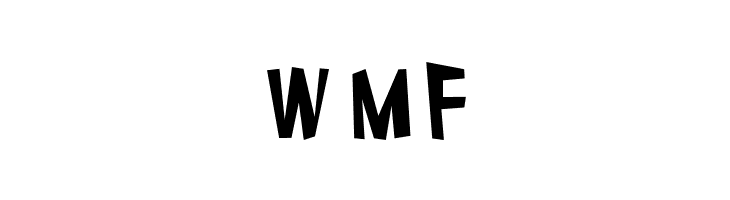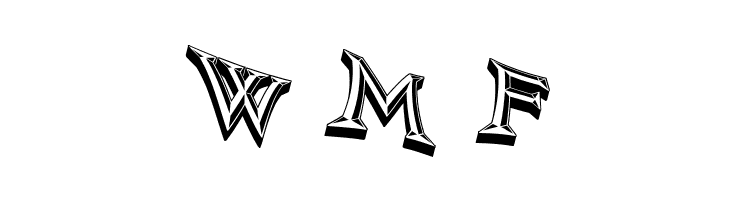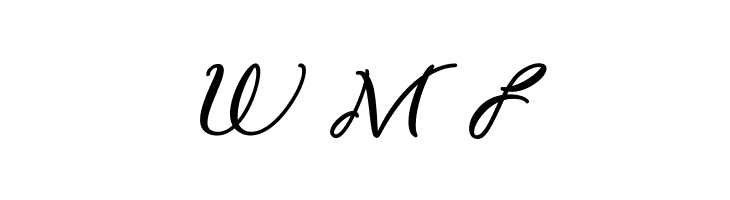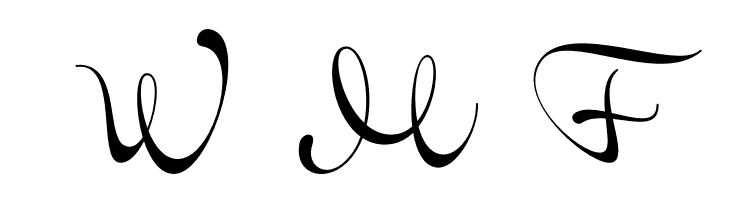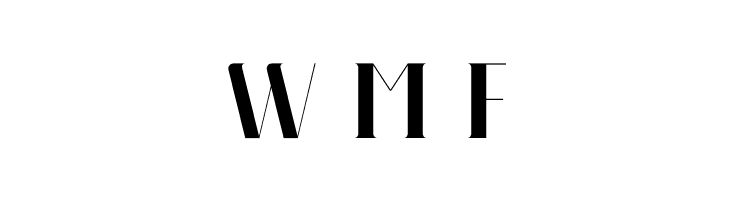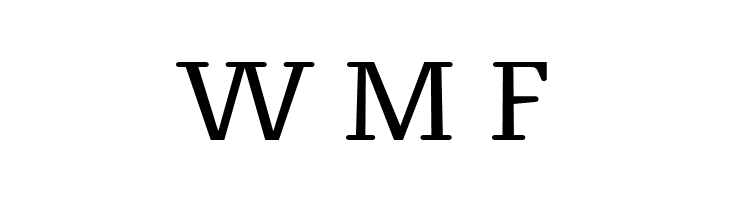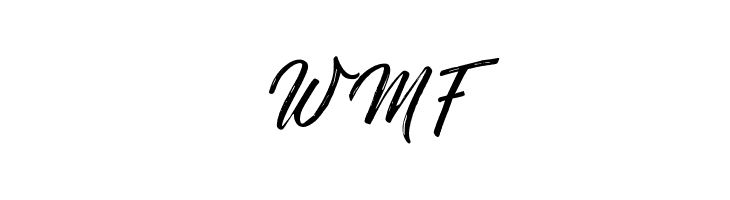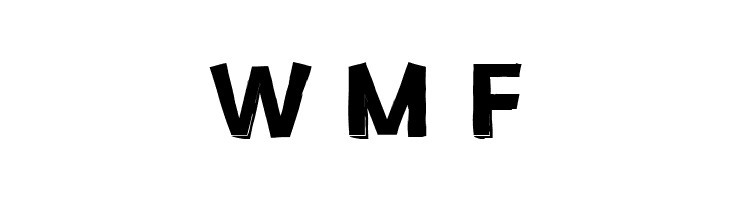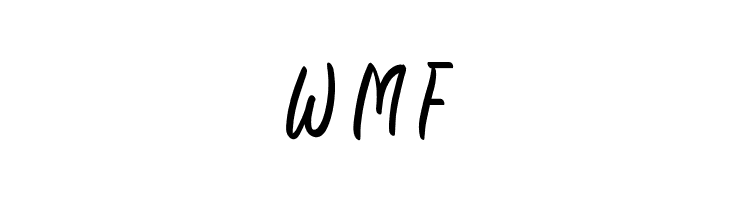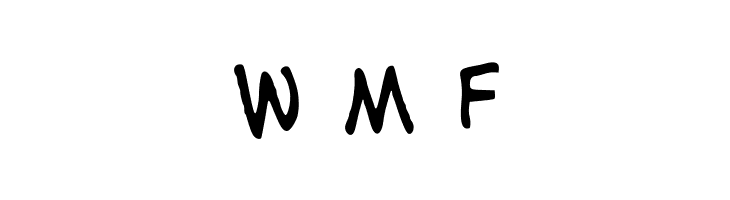
A classic serif font with modern elegance and balanced proportions.
A classic serif font with elegant strokes and balanced proportions.
A bold serif font with a classic and authoritative style.
A bold, classic serif font with strong strokes and elegant serifs.
An elegant serif font with a classic italic slant and moderate stroke contrast.
Elegant italic serif font with a classic and sophisticated style.
A modern, dot-connected font with a geometric, technological style.
A pixelated, blocky font with a retro digital style.
A bold, distressed font with a vintage, rugged appearance.
A bold, hand-painted style font with a textured, artistic appearance.
A bold, outlined font with a modern and playful style.
A modern, ultra-thin, and elongated font with a sleek and elegant style.
A tall, narrow font with an Art Deco style and consistent stroke width.
A playful, bold handwritten font with a casual and friendly style.
A playful, handwritten font with a lively and informal style.
A bold, playful font with a hand-drawn, irregular style.
A decorative script font with elegant, flowing lines and intricate loops.
A bold, three-dimensional serif font with a medieval, gothic style.
A playful, bold font with a hand-drawn, whimsical style.
A modern, geometric font with bold, clean lines and unique character shapes.
A bold, modern font with high contrast and geometric influences.
Elegant, flowing script font.
Playful handwritten script with smooth, connected strokes.
A modern, casual handwritten script with smooth, connected strokes.
An elegant and flowing script font with dynamic strokes and interconnected letters.
A dynamic, cursive script font with fluid, expressive strokes.
An elegant, flowing cursive font with ornate uppercase and graceful lowercase letters.
A bold, monoline script font with smooth curves and consistent stroke width.